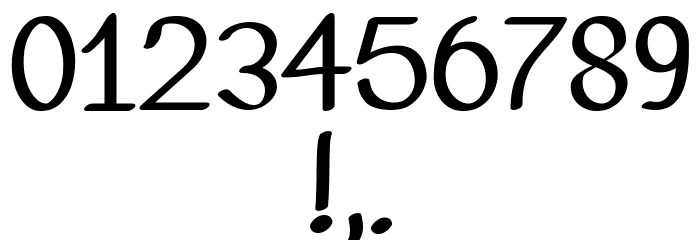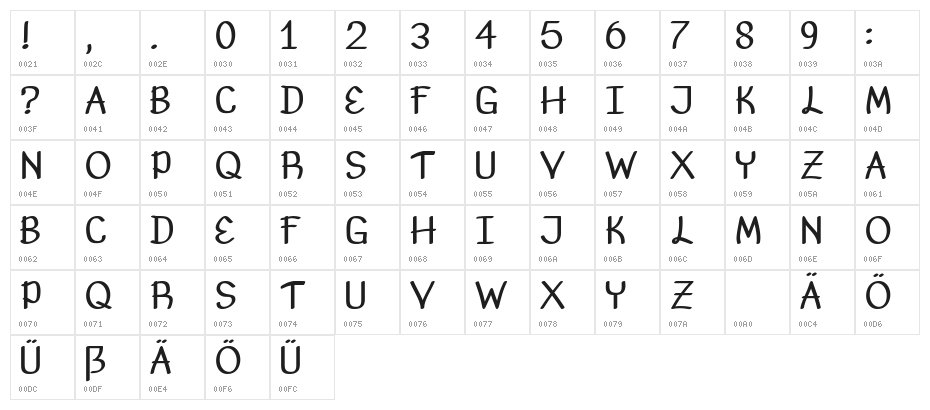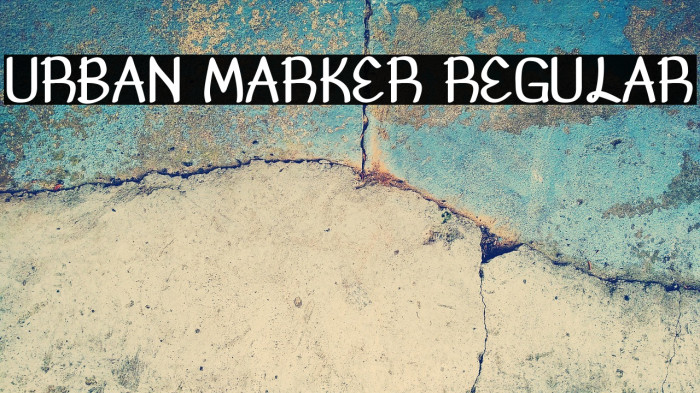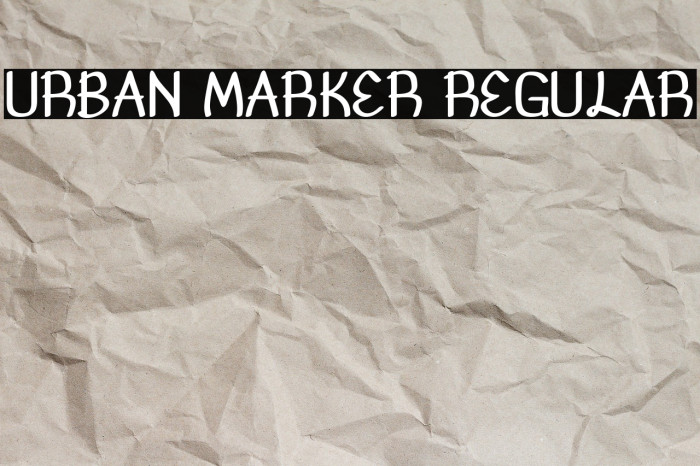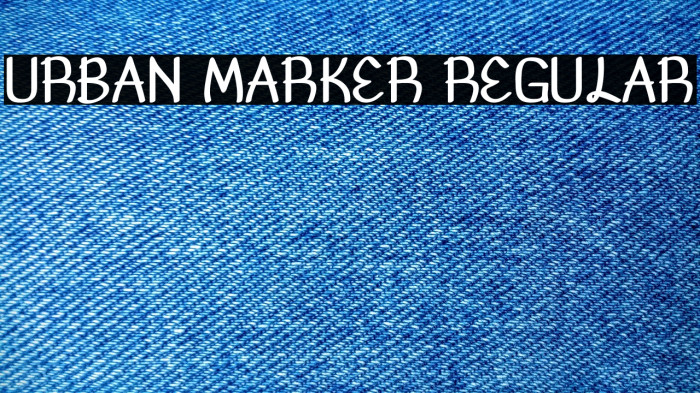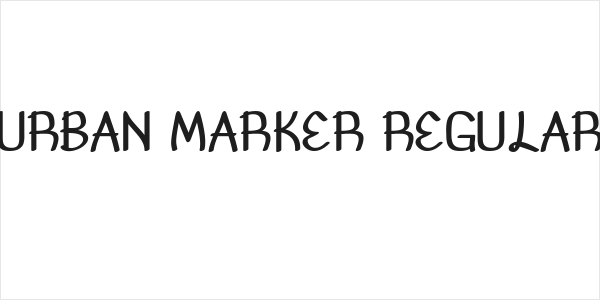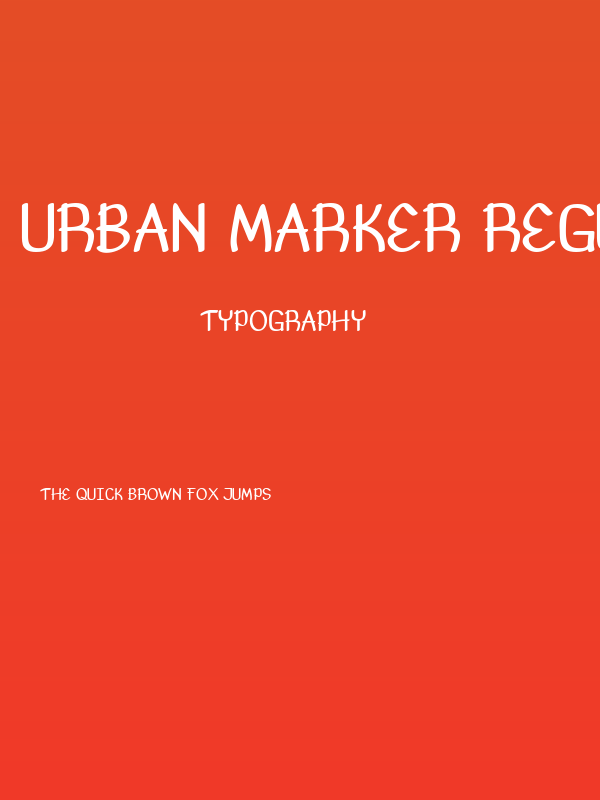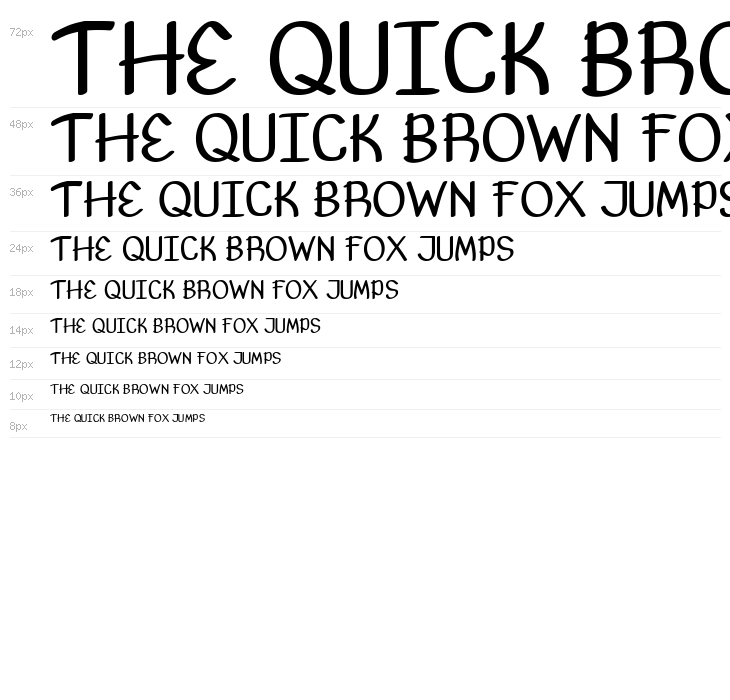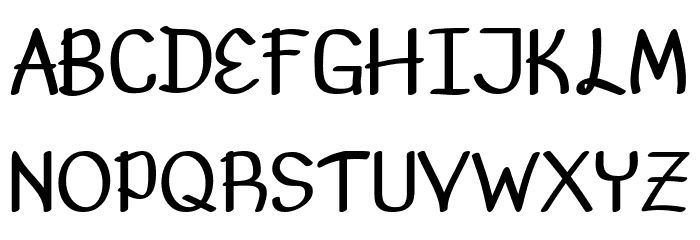
Urban Marker Regular Font
Urban Marker Regular Description
This font features a playful and casual handwritten style, reminiscent of urban graffiti or marker pen strokes. The characters are bold and rounded, with a slight slant that adds a dynamic and energetic feel. The uppercase and lowercase letters maintain a consistent flow, while the numbers and special characters complement the overall design with their smooth curves and balanced proportions. The font's informal and approachable appearance makes it suitable for projects that aim to convey a sense of creativity and spontaneity.
| Overall Style | Casual, Urban |
| Proposed Projects | Ideal for street art-inspired designs, children's book covers, casual branding, and social media graphics. |